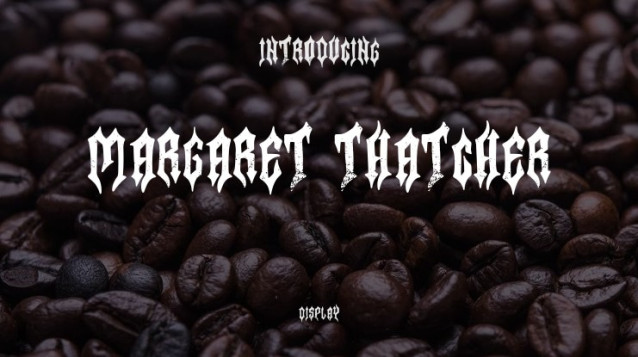
Margaret Thatcher Font
Margaret Thatcher Font is a Gothic blackletter font that channels the timeless elegance of medieval script. Its intricate and sharp letterforms evoke a sense of historical richness and sophistication. Ideal for projects requiring a touch of Gothic allure, Margaret Thatcher adds a bold and distinguished aesthetic to your designs.